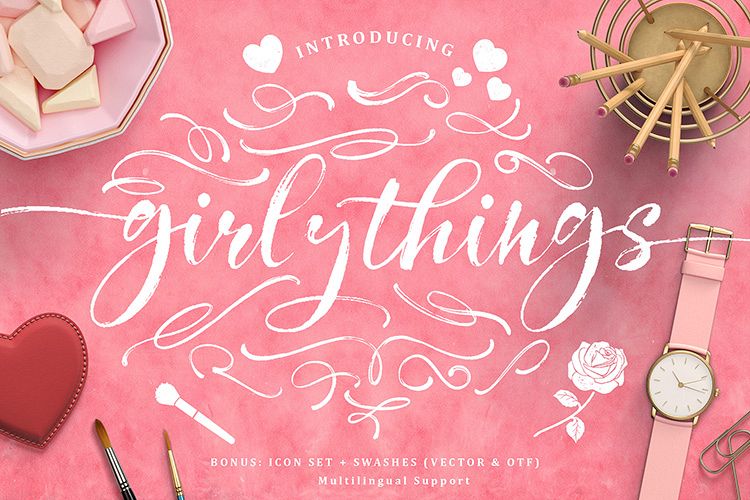
Girly Things
Who doesn't love hand drawn brush script with swashes. We are please to introduce the beautiful Girly Things Script font.
Curly Swashes & Icons Included, We truly understand that some of you is a fans of illustration/icons or maybe just a person that need to fill the empty area on your design, so we decided to included a curly swashes and a set of icons on the package. This icons came on font file (OTF) so you don't have to worry if you don't have design software/APP you still can use it on MS word by type the uppercase and lowercase, If you are designer we agree if vector file is a must (AI and EPS 10), Just in case if you need Hi Res file with transparent background(PNG).
Opentype Feature, Girly Things font also includes full set of uppercase and lowercase letters, multilingual symbols, numerals, punctuation, ligature, discretionary ligature, alternate upper case and alternate lowercase. The font has dry ink texture, so would be perfect if you looking for something artsy and hand made.